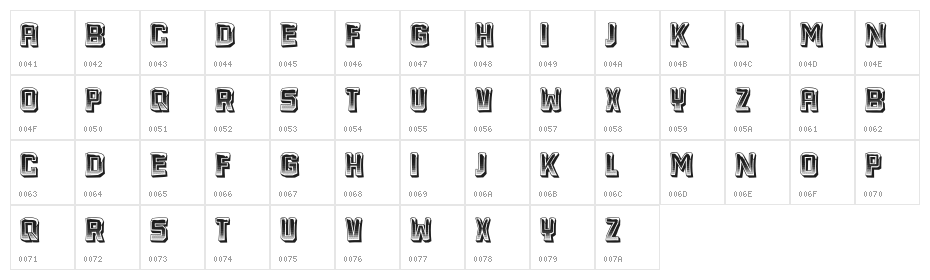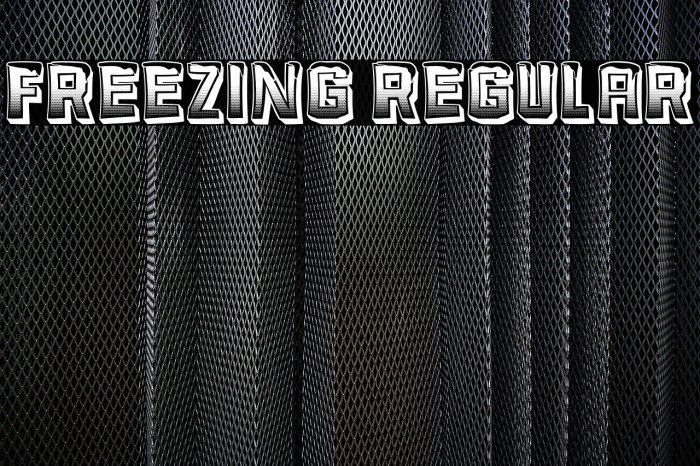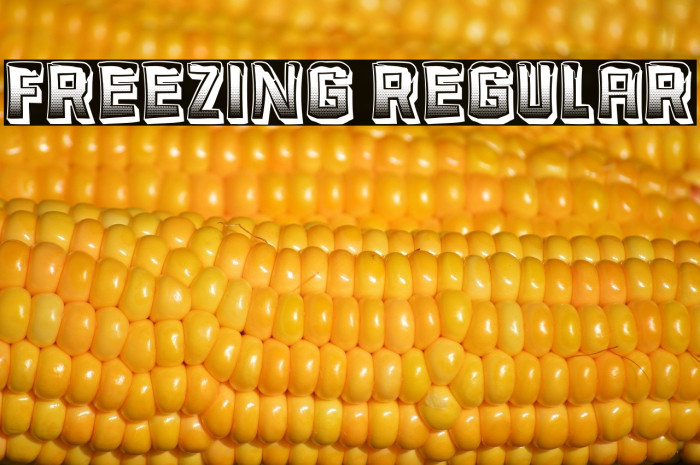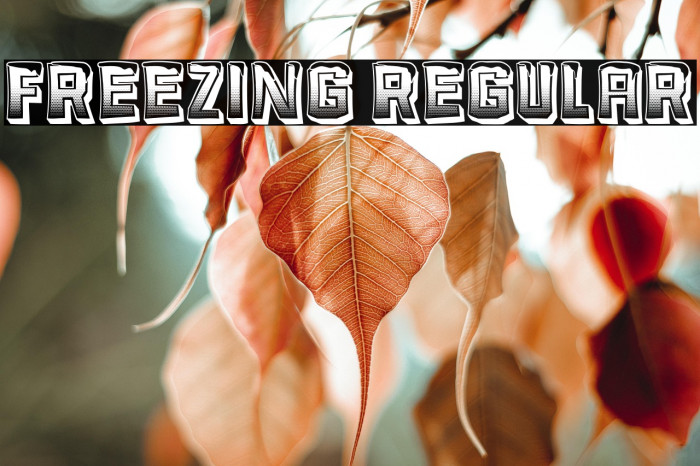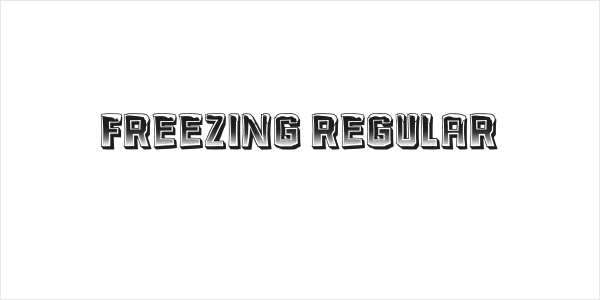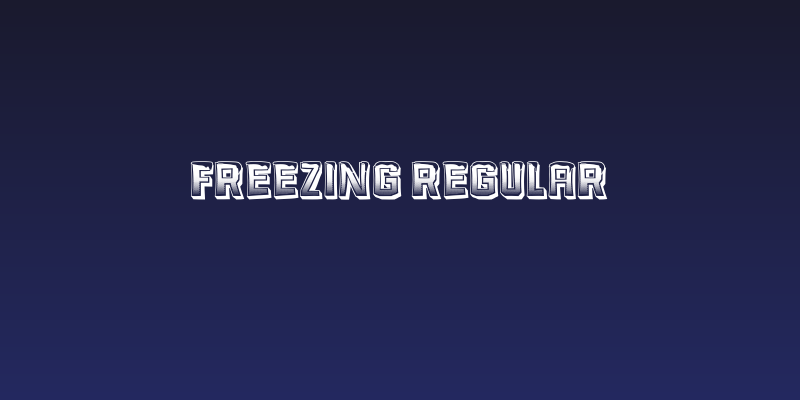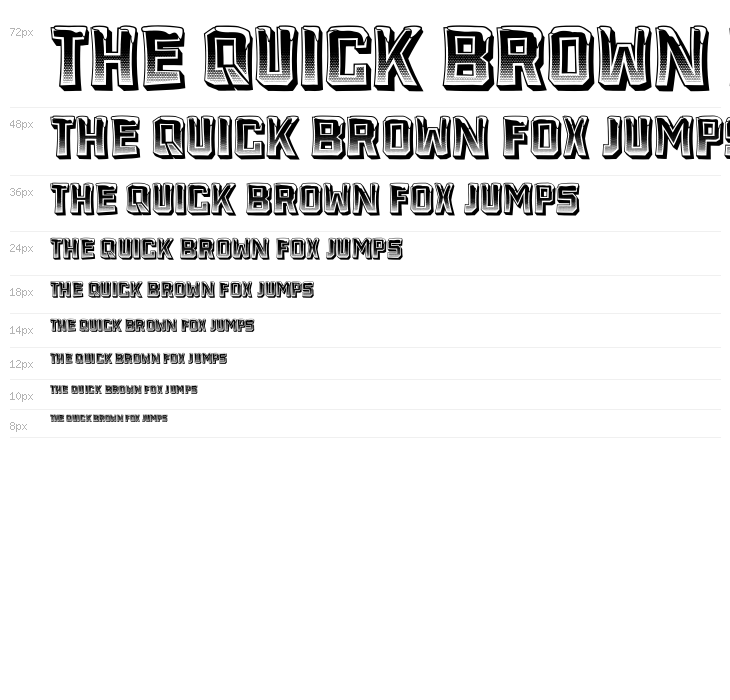
Freezing Regular Font
Freezing Regular Description
This font features a bold, three-dimensional style with a distinct shadow effect, giving each character a sense of depth and solidity. The uppercase letters are designed with a strong geometric structure, while the shadowing adds a vintage comic book or retro poster feel. The font's boldness and unique style make it stand out, ideal for eye-catching designs. The characters have a consistent width, and the shadowing is uniform across all letters, enhancing its cohesive appearance.
| Overall Style | Vintage |
| Proposed Projects | Ideal for retro-themed posters, comic book covers, video game titles, and any design requiring a bold, eye-catching typeface. |